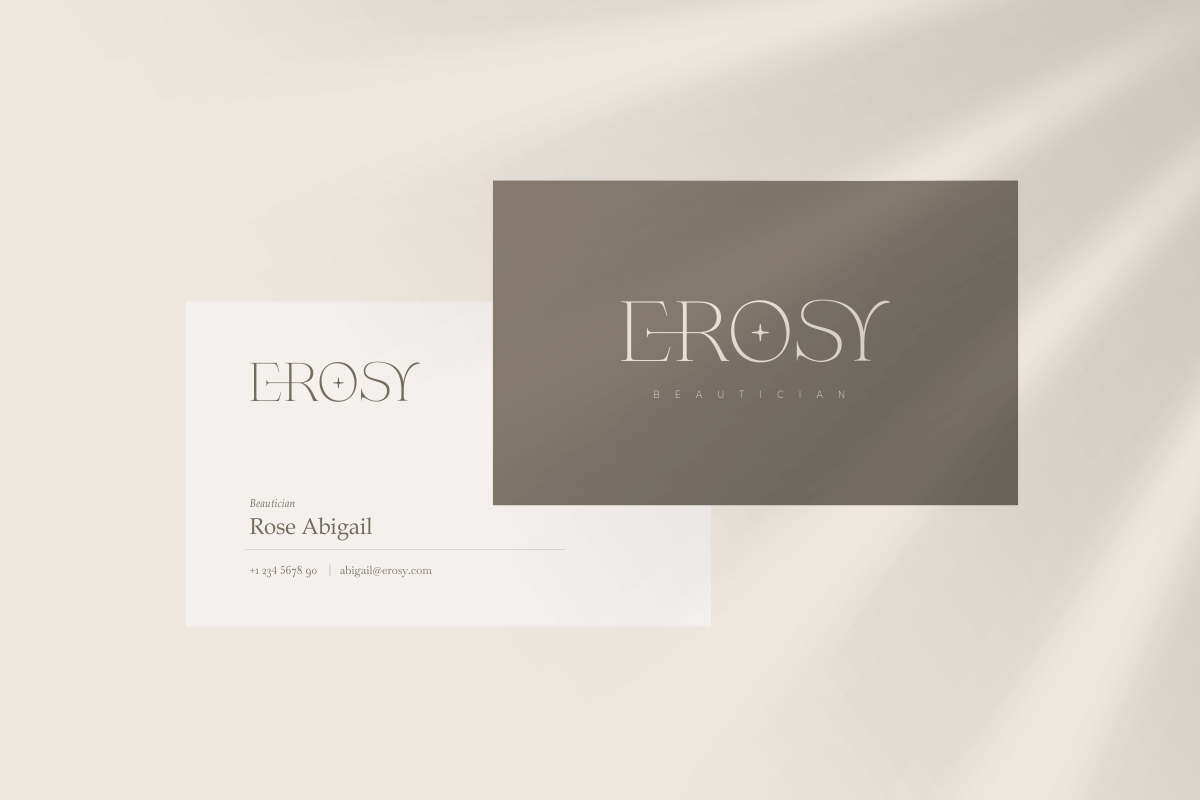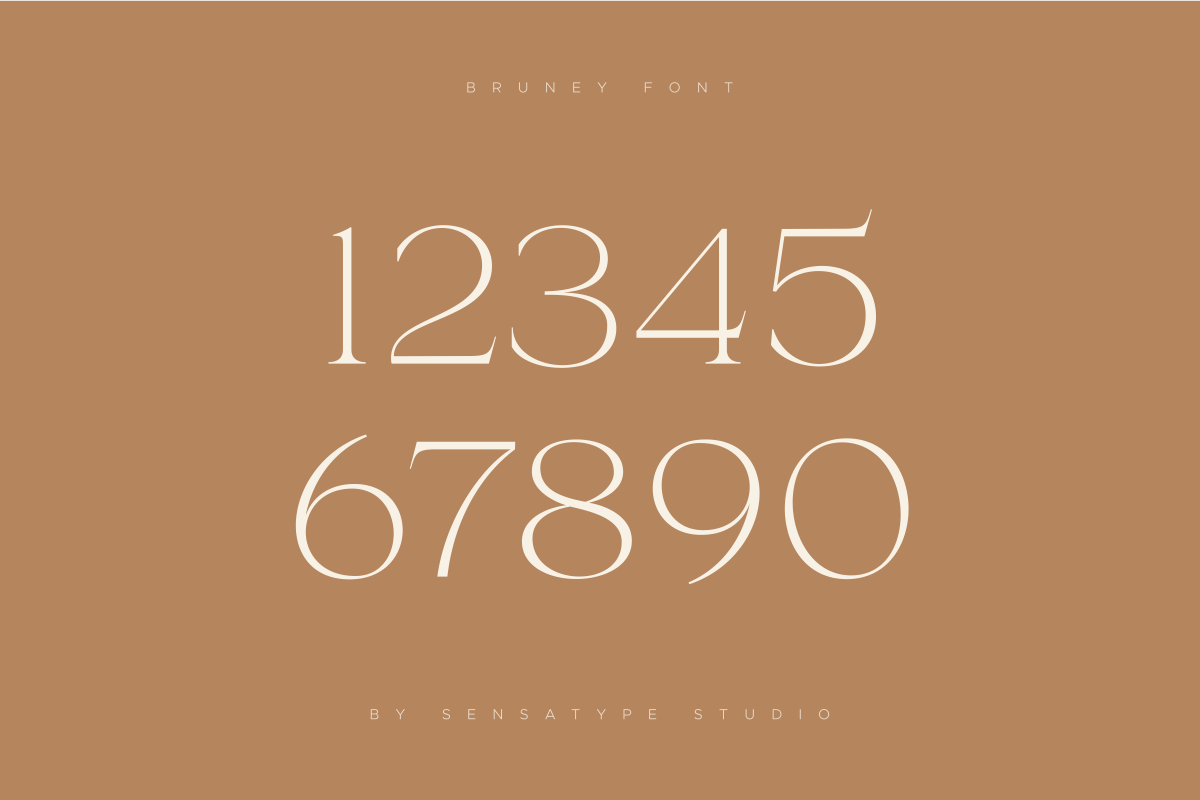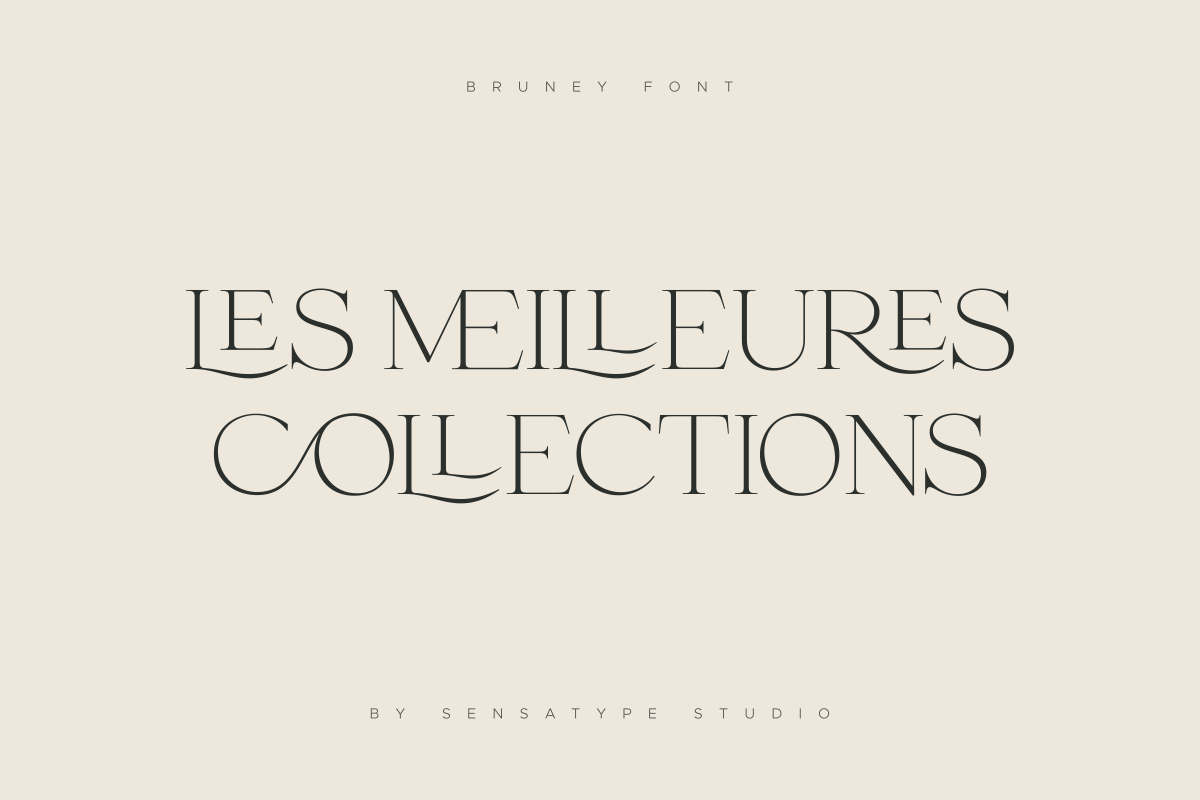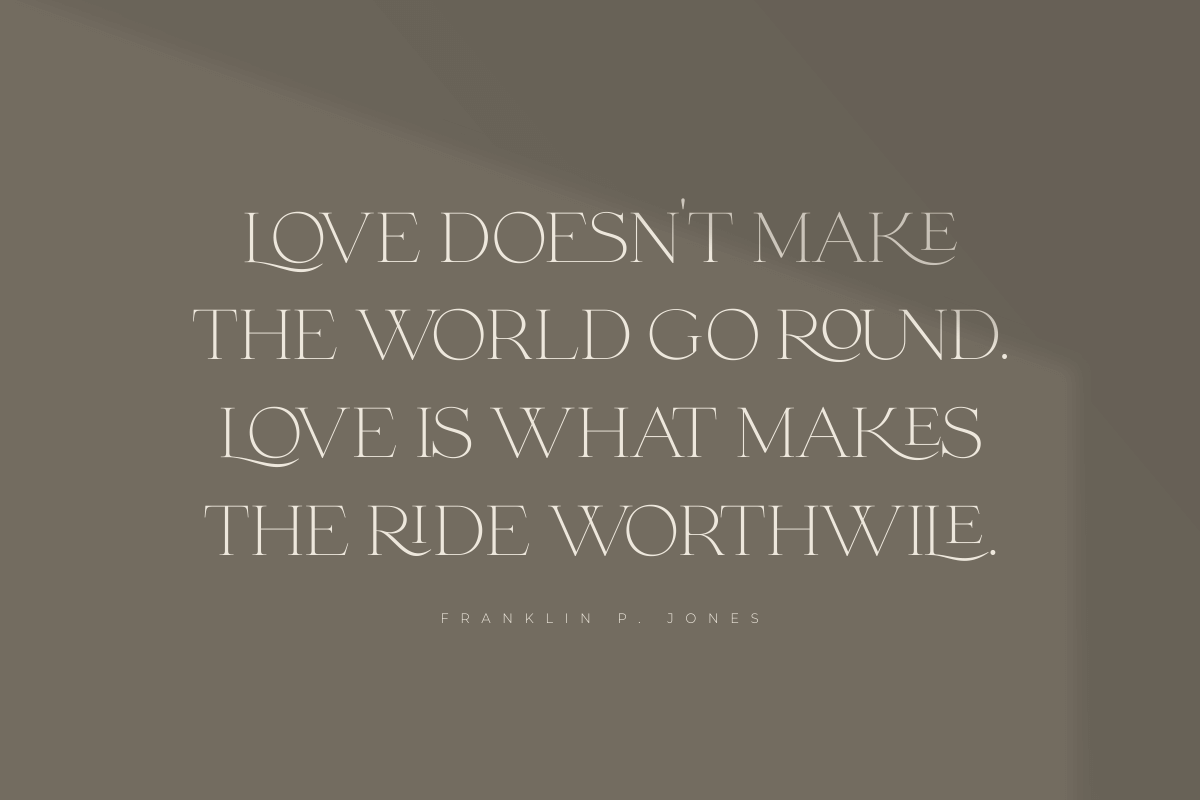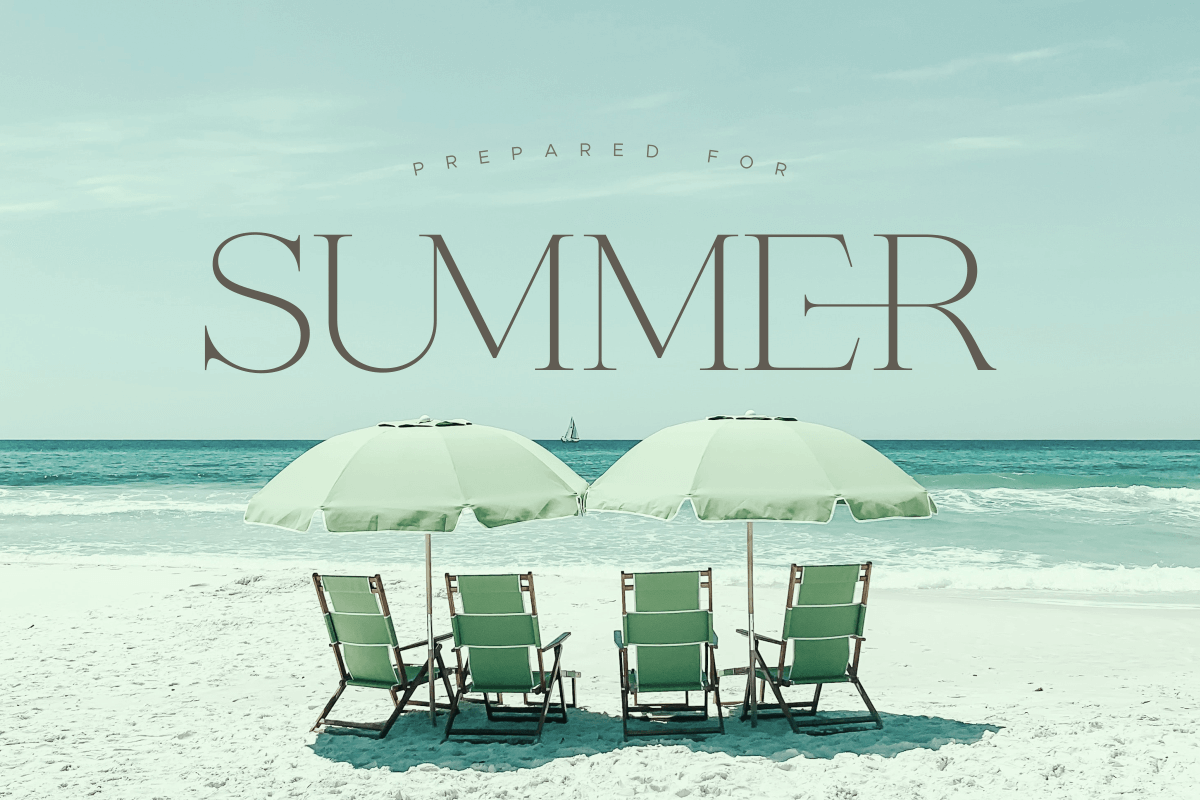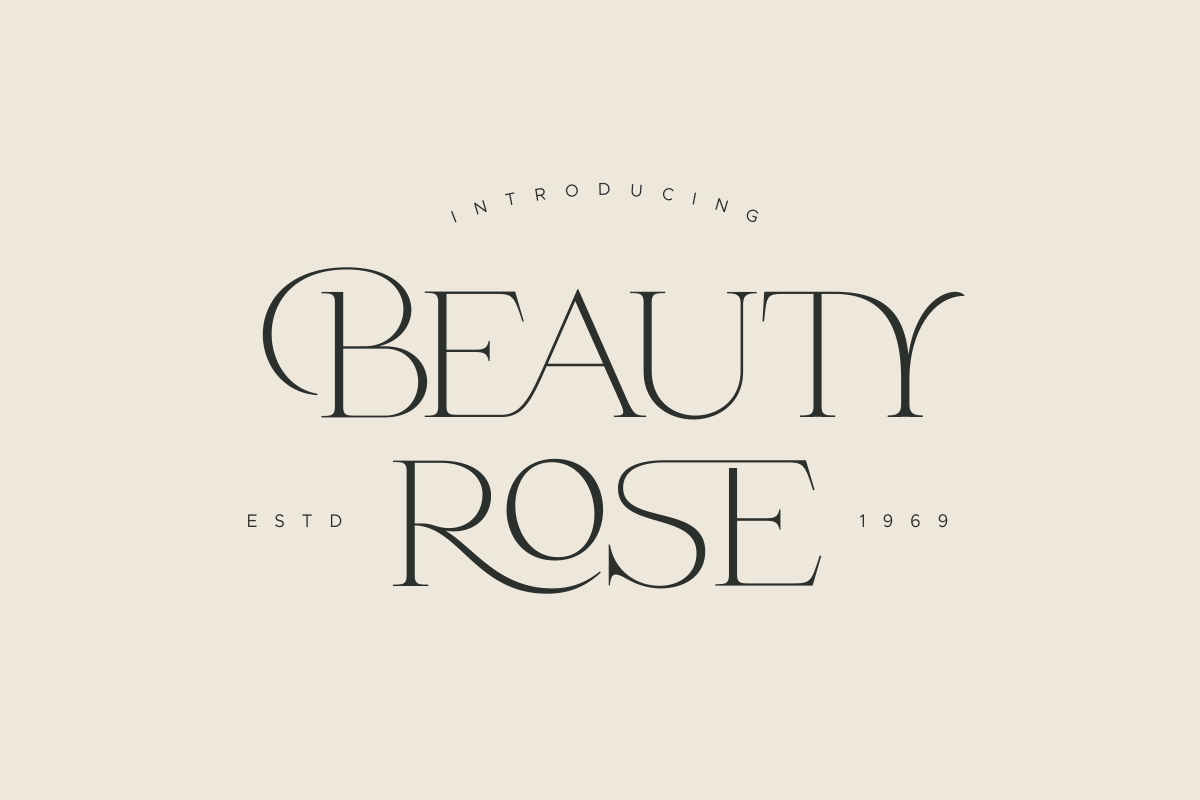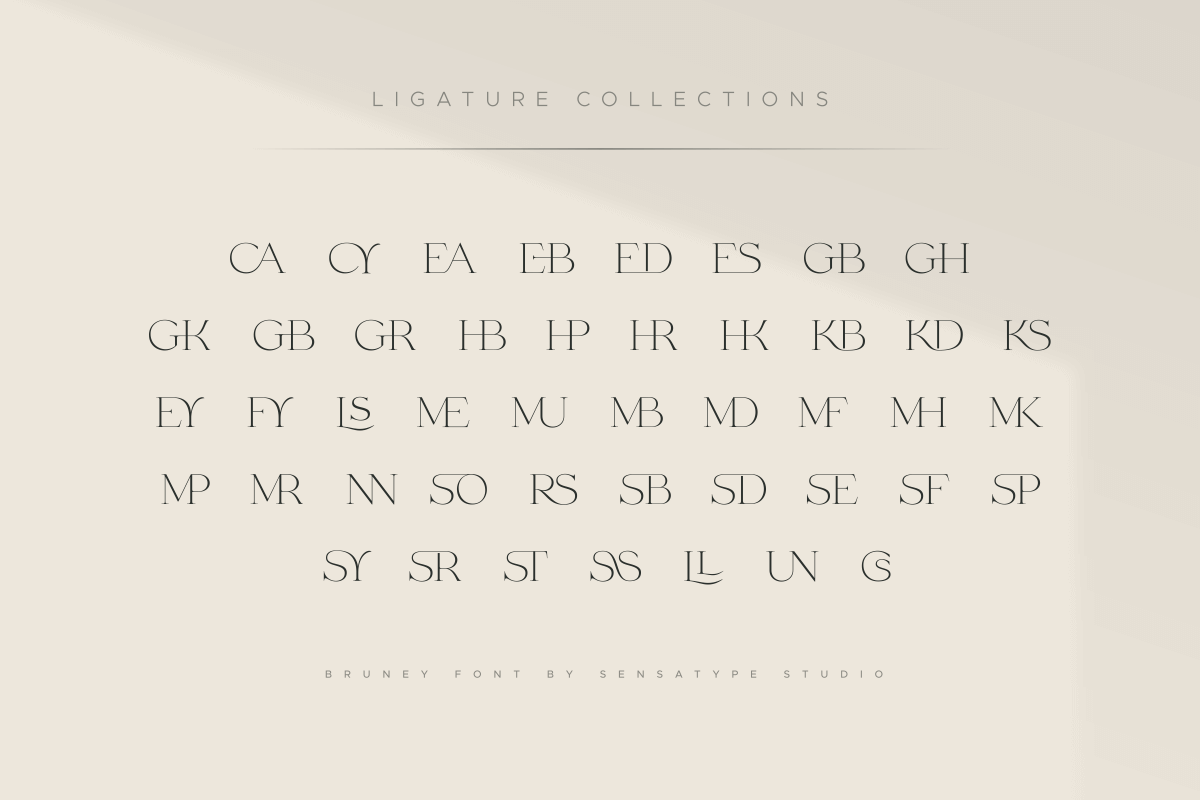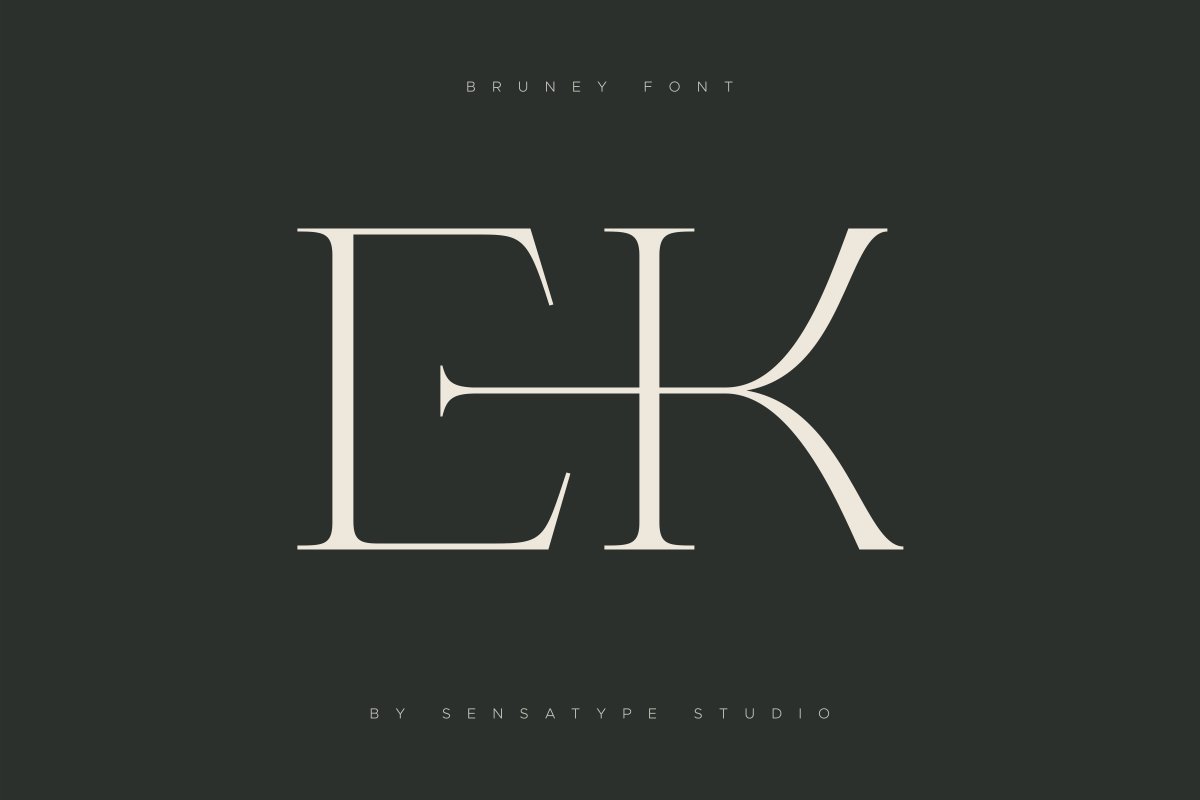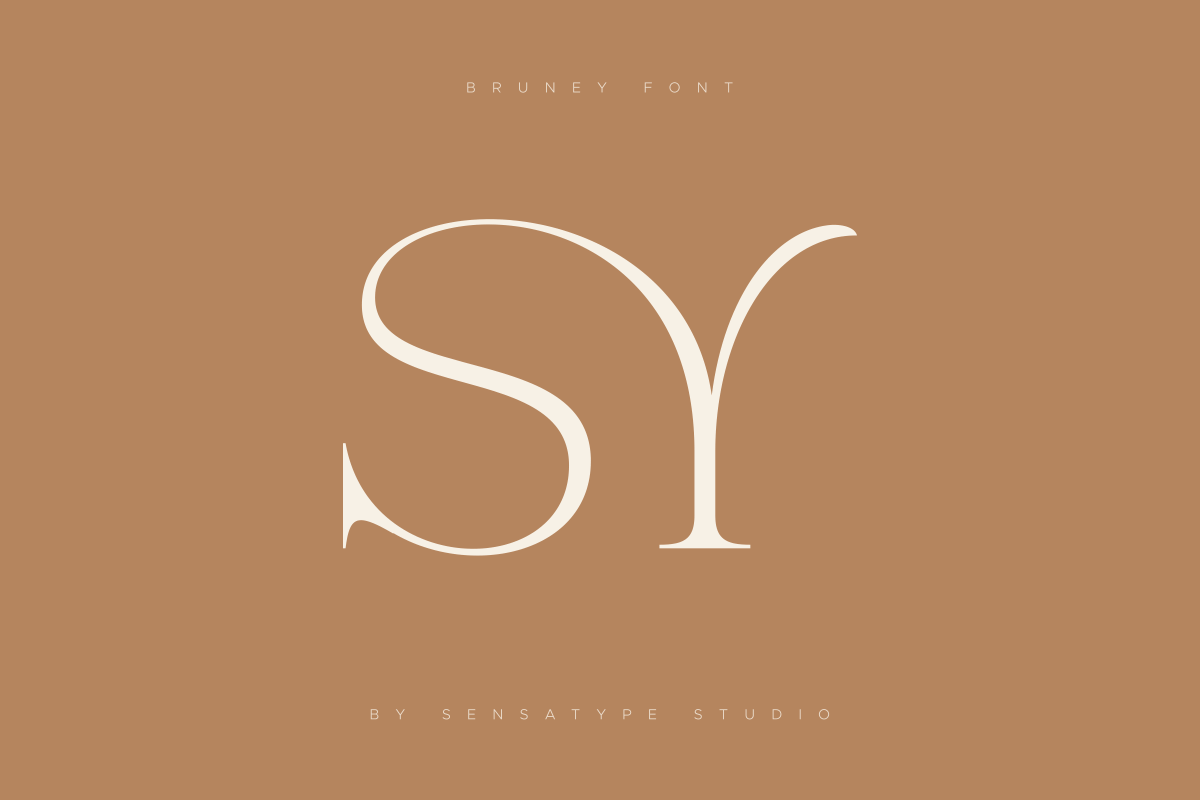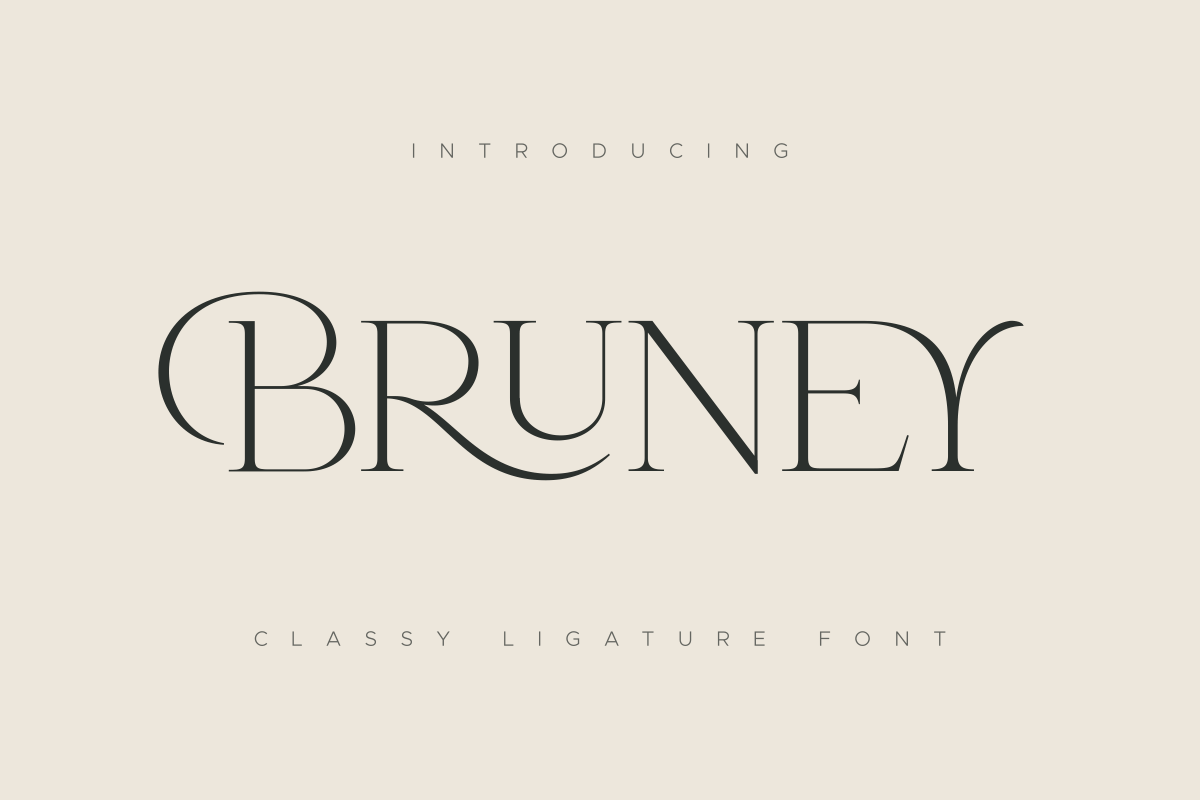
Bruney is a Classy and Unique font for brand and logo design.
Based on our experience as a graphic designer who works for a lot of companies, we often are requested to design a logo in a unique style but with an elegant shape. So, we try to brainstorming and create this font to make the idea is going out. This is perfect for BRANDING and LOGO DESIGN. You will get classy, elegant, and certainly unique logos with this font.
To make it look more classy and unique, here we prepared some ligatures:
KA KI KU KE KO LA LI LU LE LO RA RI RU RE RO EB EH EP ER EK HB HP HK HR TB TD TE TF TP TR TT UB UD UF UK UM UN UP UR VA WA AB AD AR AV AW CK OO OC CA CY EA EB ED ES GB GH GK GB GR HB HP HR HK KB KD KS EY FY LS ME MU MB MD MF MH MK MP MR NN SO RS SB SD SE SF SP SY SR ST SS LL UN CS
- uppercase letters
- multilingual symbols
- numerals
- punctuation
This font creates beautiful, unique text. I am a beginner, and was able, with a little googling, to figure out how to use the ligature elements of the font. It creates a really pleasing look!
This is one of the most beautiful fonts I have in my collection. I have the desktop version and the web version and can't wait to use them on our non-profit website. I especially love that you can easily make a logo from the letters.